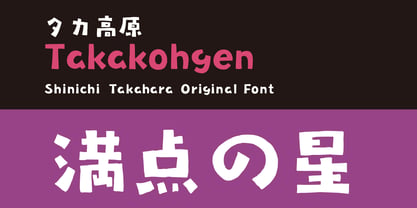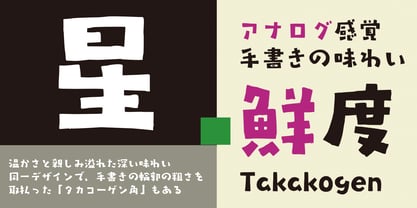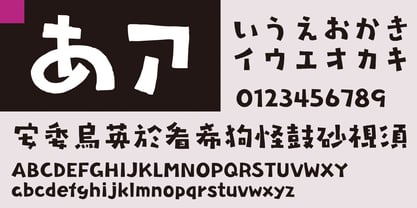
Takakohgen
by Taka Design Production
The Takakohgen Font Family was designed by and published by Taka Design Production. Takakohgen contains 1 styles. More about this family
This handwritten typeface is based on the image of a “highland” where everything is alive, including the majestic beauty of nature, clean air, and trees. The design has a warm and friendly handwritten taste.